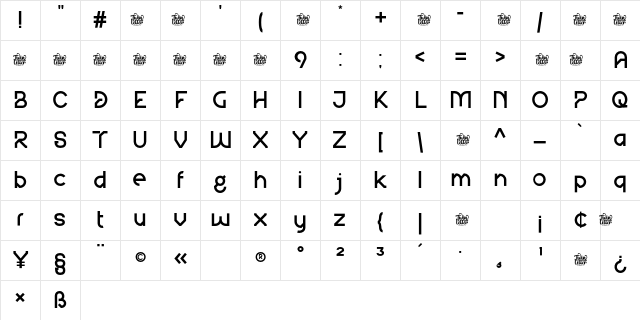
Agree Bold Free Font
Agree Bold
Foundry: rozi
Designer: afri
Agree Family
Agree Bold
Design Context for Agree
Agree is a composed and adaptable typeface that performs quietly and consistently across a wide range of design contexts. Its bold stroke weight gives it real presence on the page.